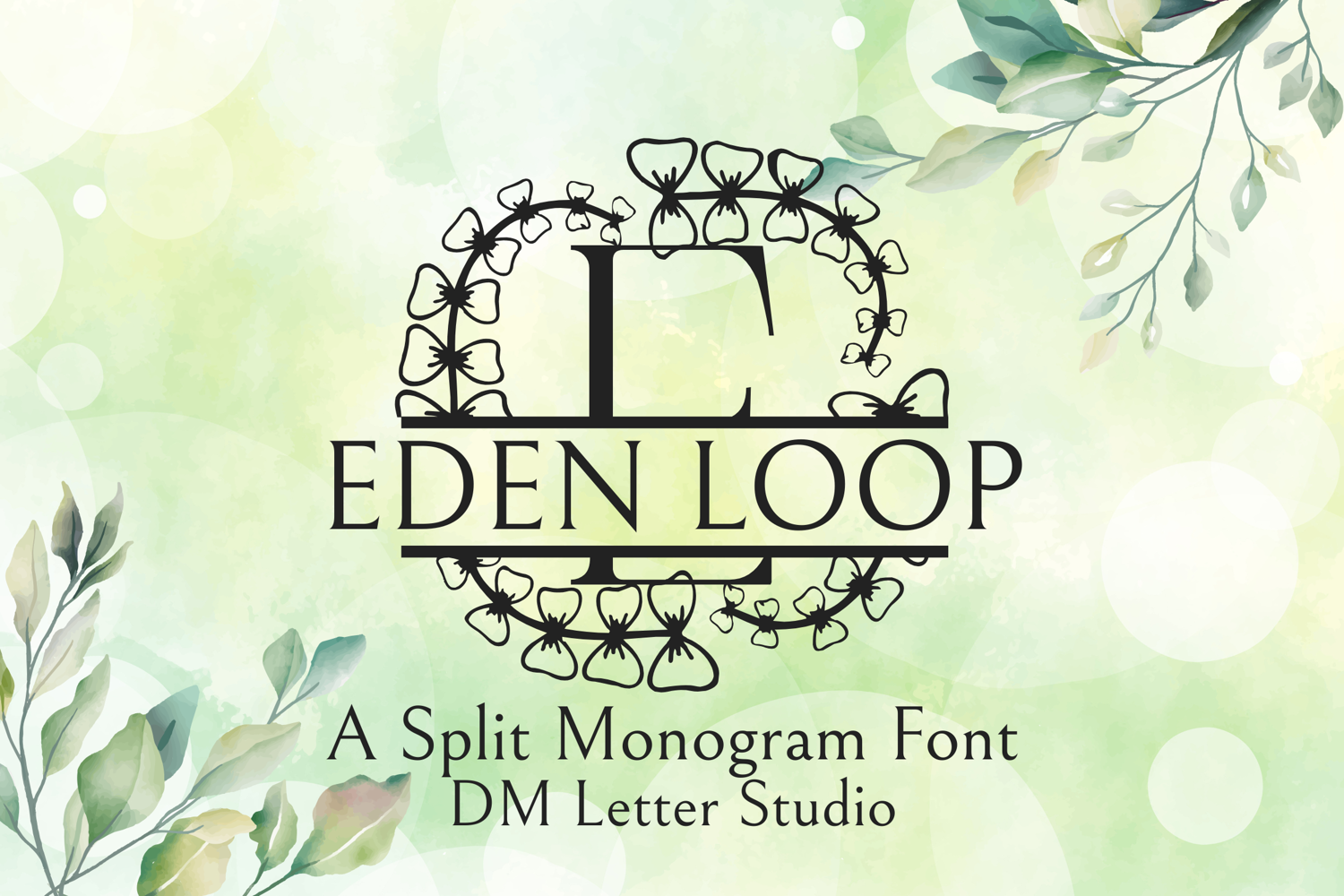
Eden Loop Split Monogram - Ornamental Split Monogram Serif
Eden Loop Split Monogram
Eden Loop Split Monogram – Ornamental Split Monogram Serif Font
Eden Loop Split Monogram is a beautifully refined serif font featuring elegant loops and a balanced horizontal split designed for customized name inserts. Each uppercase letter is adorned with graceful swirls and curved flourishes, blending timeless sophistication with custom-friendly layout. Ideal for wedding signage, luxury branding, and thoughtful customized gifts, this font makes every monogram feel bespoke and romantic.
• Split Serif Monogram: Classic uppercase letters divided with a clean horizontal break for name customization.
• Ornamental Loops: Decorative swirls and elegant loops enhance each letterform with sophisticated flair.
• Perfect for Customization: Made for name signs, monogram crests, and boutique logos.
• Ideal For: Wedding invitations, custom name plates, Cricut crafts, elegant packaging, luxury stationery, and heirloom gifts.